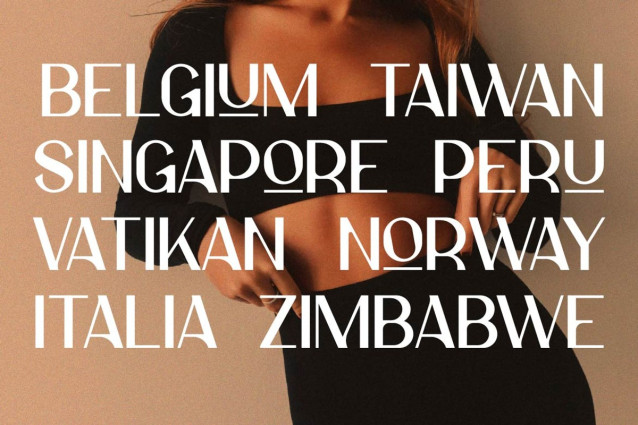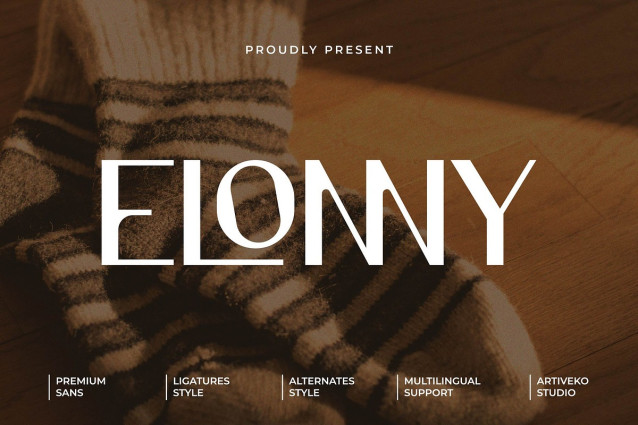
Elonny Font
Elonny Font is a minimalist sans serif font designed with clarity and balance in mind. With smooth curves, open letterforms, and a perfectly even rhythm, Elonny brings a sense of calm precision to your designs. It’s the ideal typeface for modern branding, editorial layouts, UI/UX interfaces, packaging, and lifestyle visuals that seek a clean and professional feel.
This fonts are great for product logo,wedding card logo, clothing brand logo, Vintage design and much more.